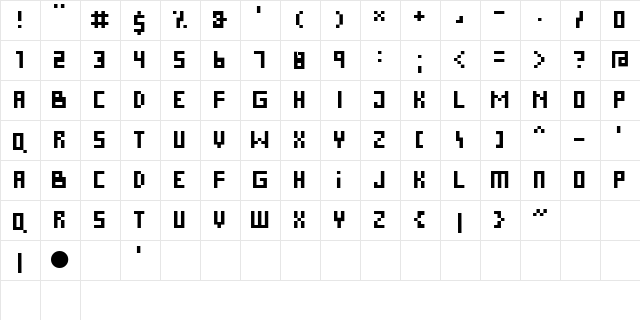
Pixies Regular
Design Context for Pixies Typeface
Pixies takes a measured approach to typography — its balanced proportions and neutral character make it a reliable workhorse for both digital and print work.